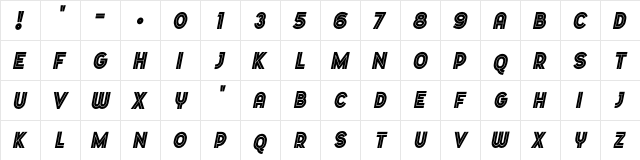
Dopest by MARSNEV italic
Design Context for Dopest by MARSNEV Typeface
Dopest by MARSNEV offers clean, dependable letterforms without strong stylistic allegiance, making it a practical choice for designers who need flexibility. The slanted form adds forward momentum and visual energy.
Pro Tip: Use Dopest by MARSNEV for emphasis, pull quotes, and subheadings where its slanted energy can add rhythm to the layout.